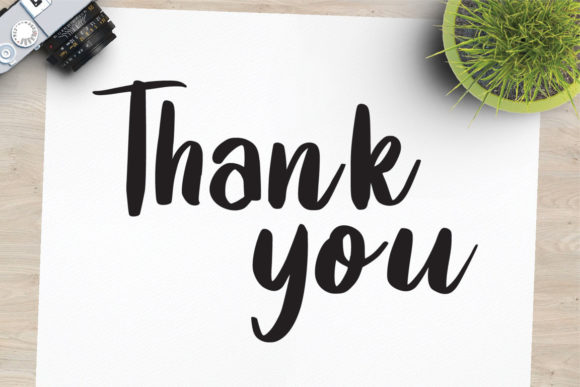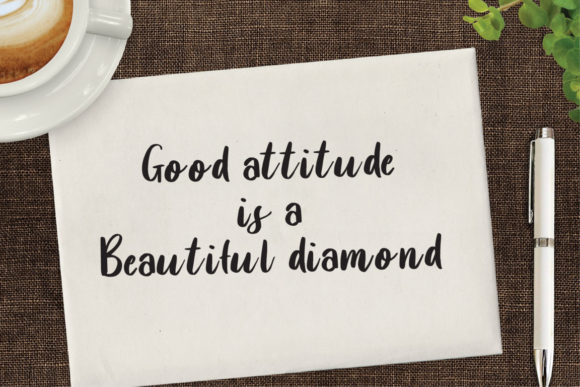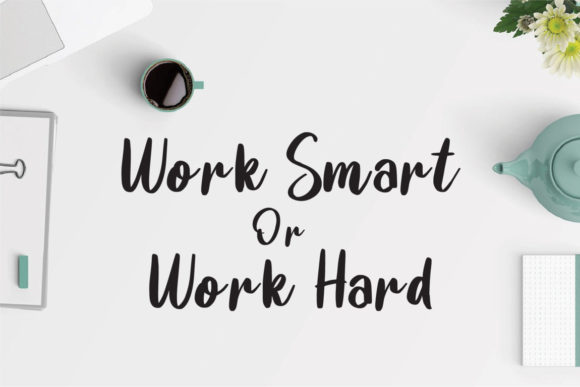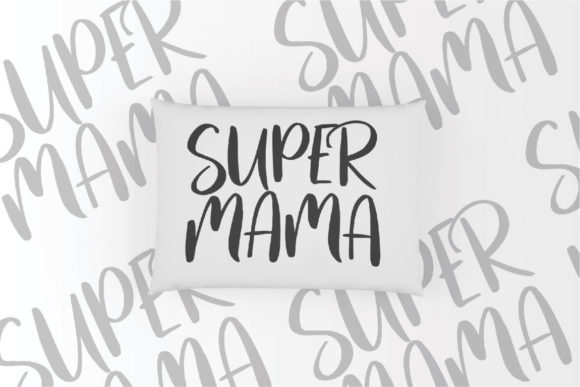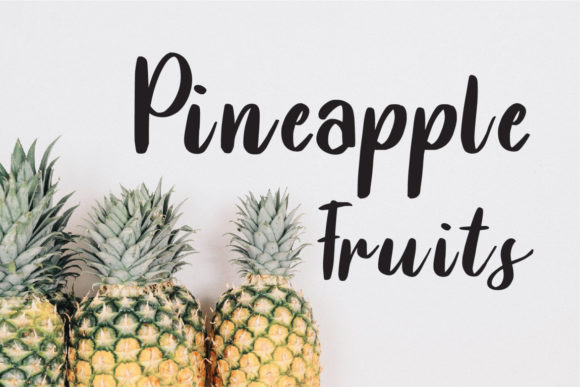
Melodic Font
About Melodic Font
Melodic is a cursive and bold handwritten font. This font reads as strong, confident, and dynamic and can add tons of nostalgic character to your designs.